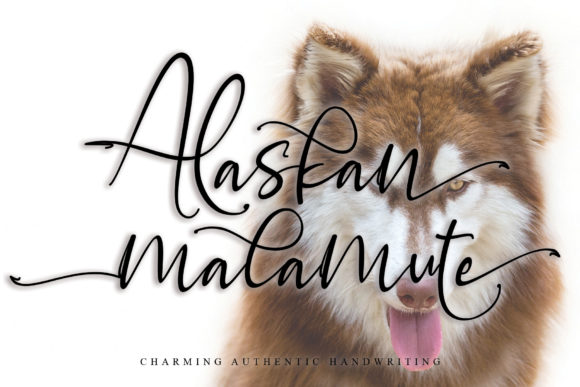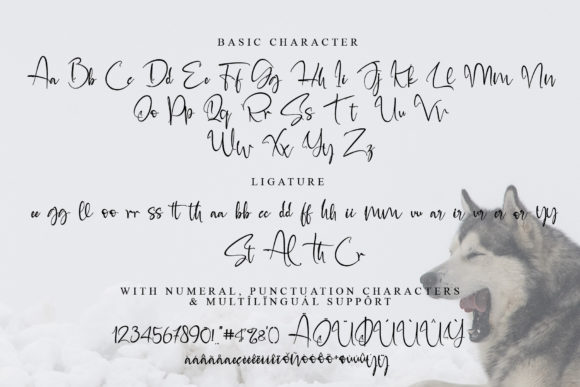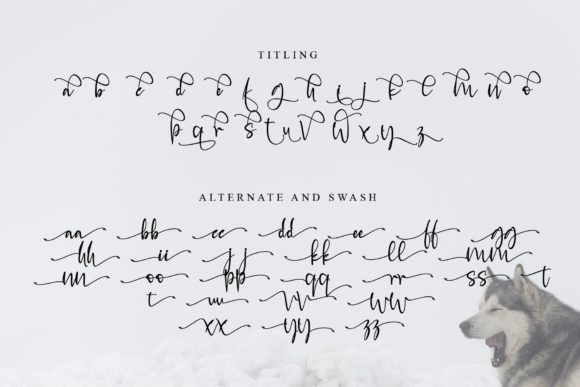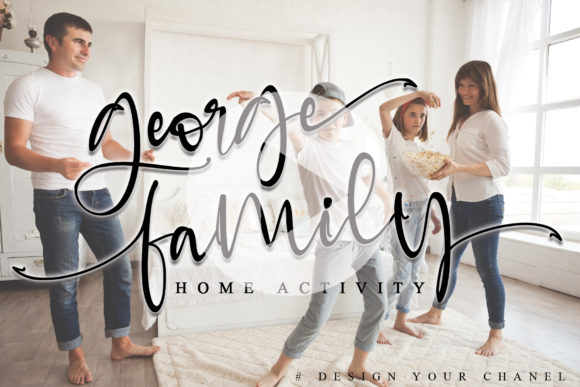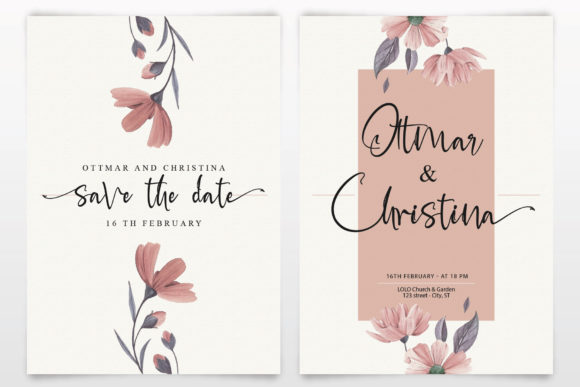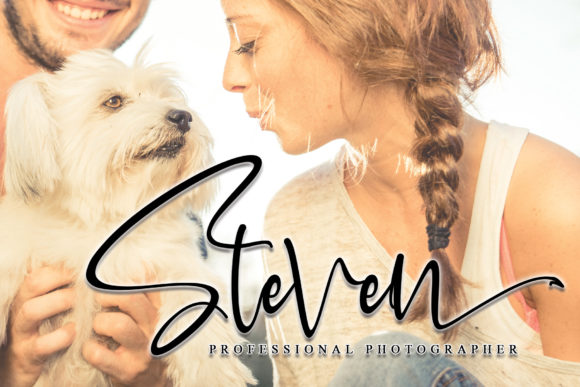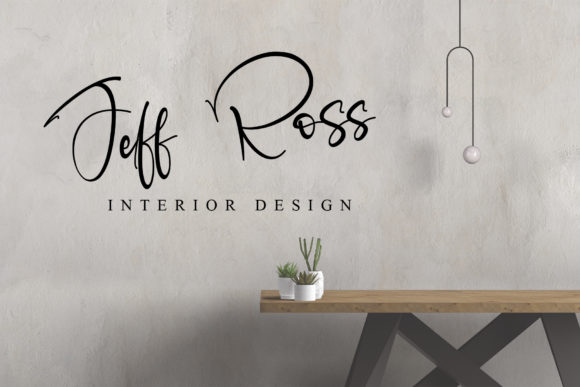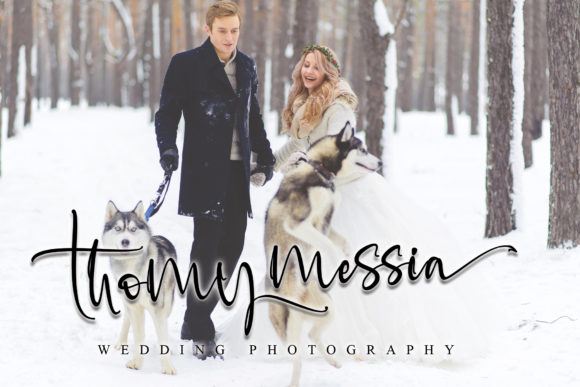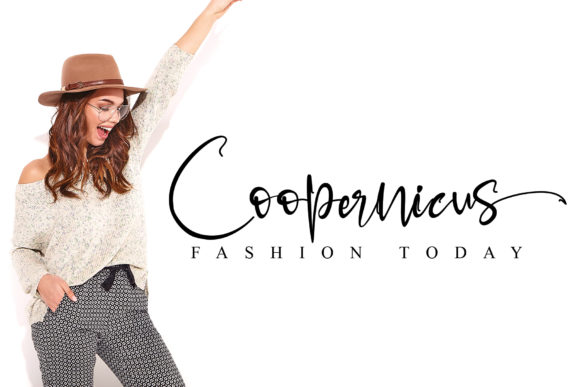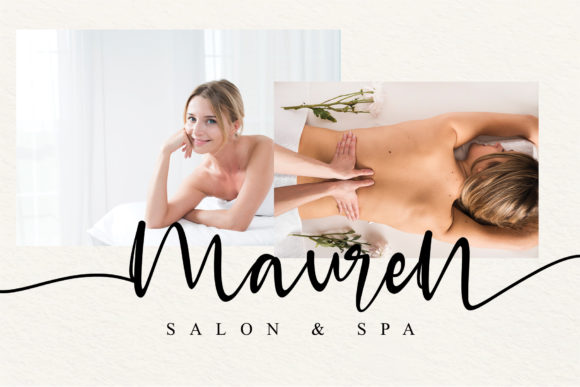
Alaskan Malamute Font
About Alaskan Malamute Font
Alaskan malamute is charming authentic handwriting font. This is a beautiful combination of timeless elegance and authentic calligraphy. Alaskan malamute is the perfect font for making original and outstanding designs. This font is PUA encoded which means you can access all of the cute glyphs and swashes with ease! It also features a wealth of special features including alternate glyphs and ligatures.